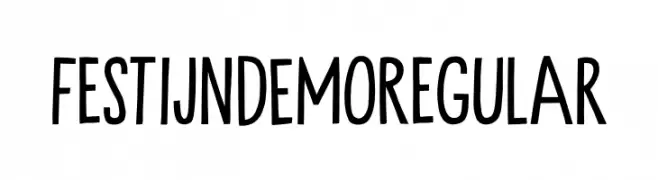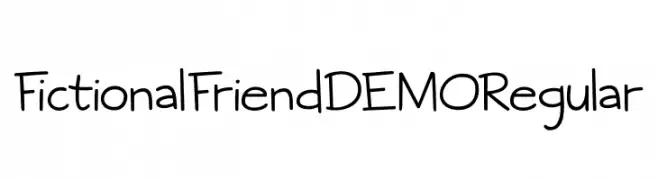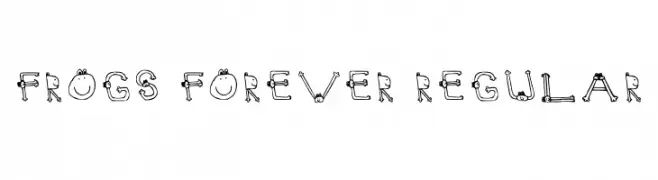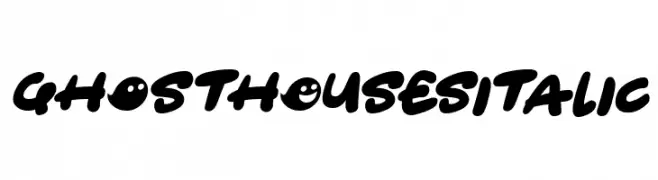
A playful, hand-drawn font with a whimsical and friendly style.
A bold, modern font with thick strokes and playful special characters.
A decorative emoji-style font featuring expressive faces and symbols in circles.
A playful doodle-style icon font with whimsical symbols.
A playful, frog-themed font with whimsical, hand-drawn characters.
A playful, whimsical font with tall, narrow letters and rounded edges.
A playful, bold, and slightly italicized handwritten font with unique, fun elements.